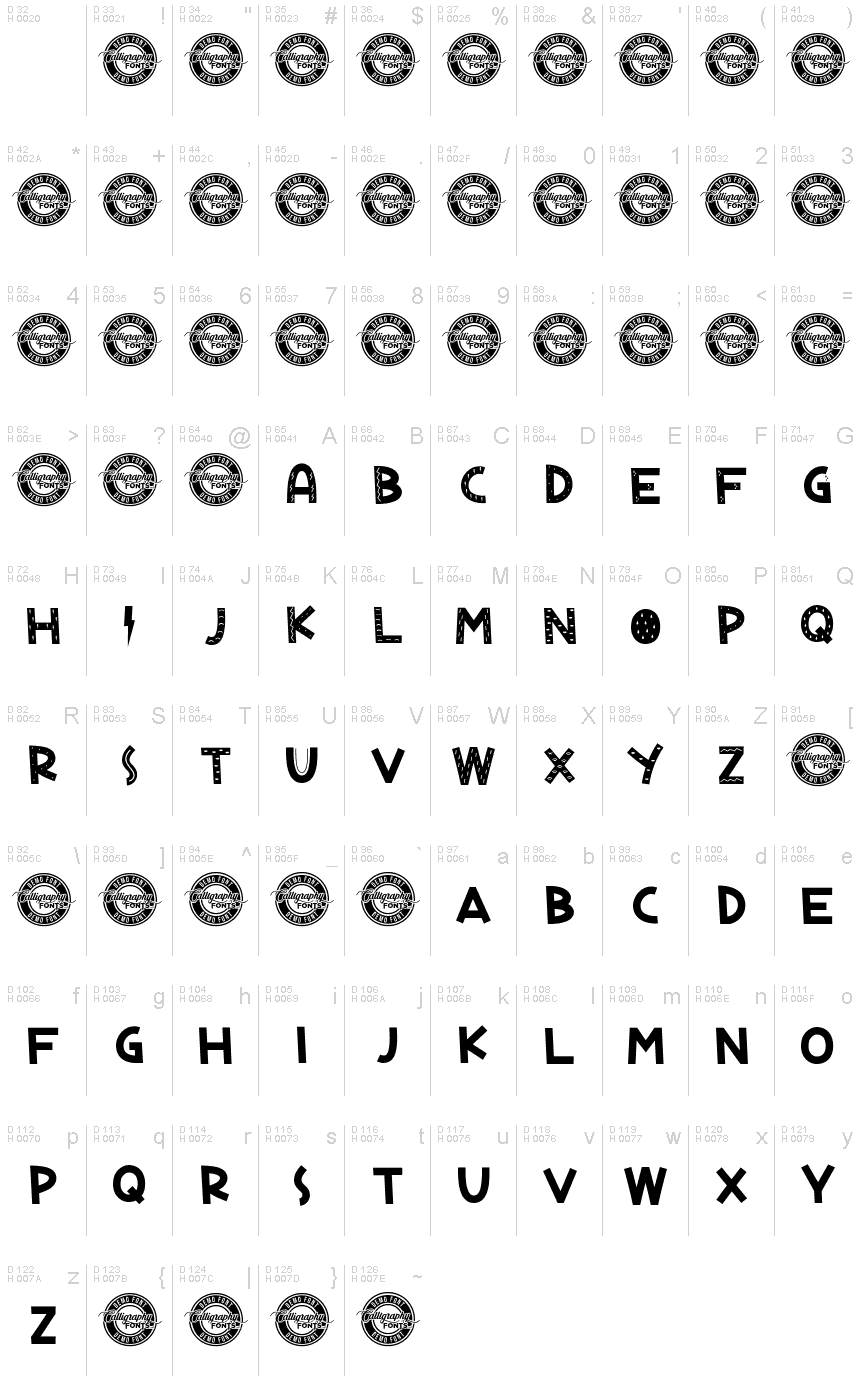
Your Umbrella Demo
Your Umbrella, designed by Calligraphy Fonts, is a whimsical and playful display font that adds a touch of charm to any project.
With its decorative and comic style, this font is perfect for children's book illustrations, greeting cards, party invitations, and playful branding projects. Its unique letterforms and flowing lines create a delightful visual experience, making it an excellent choice for creating eye-catching headlines or adding a touch of fun to your designs.